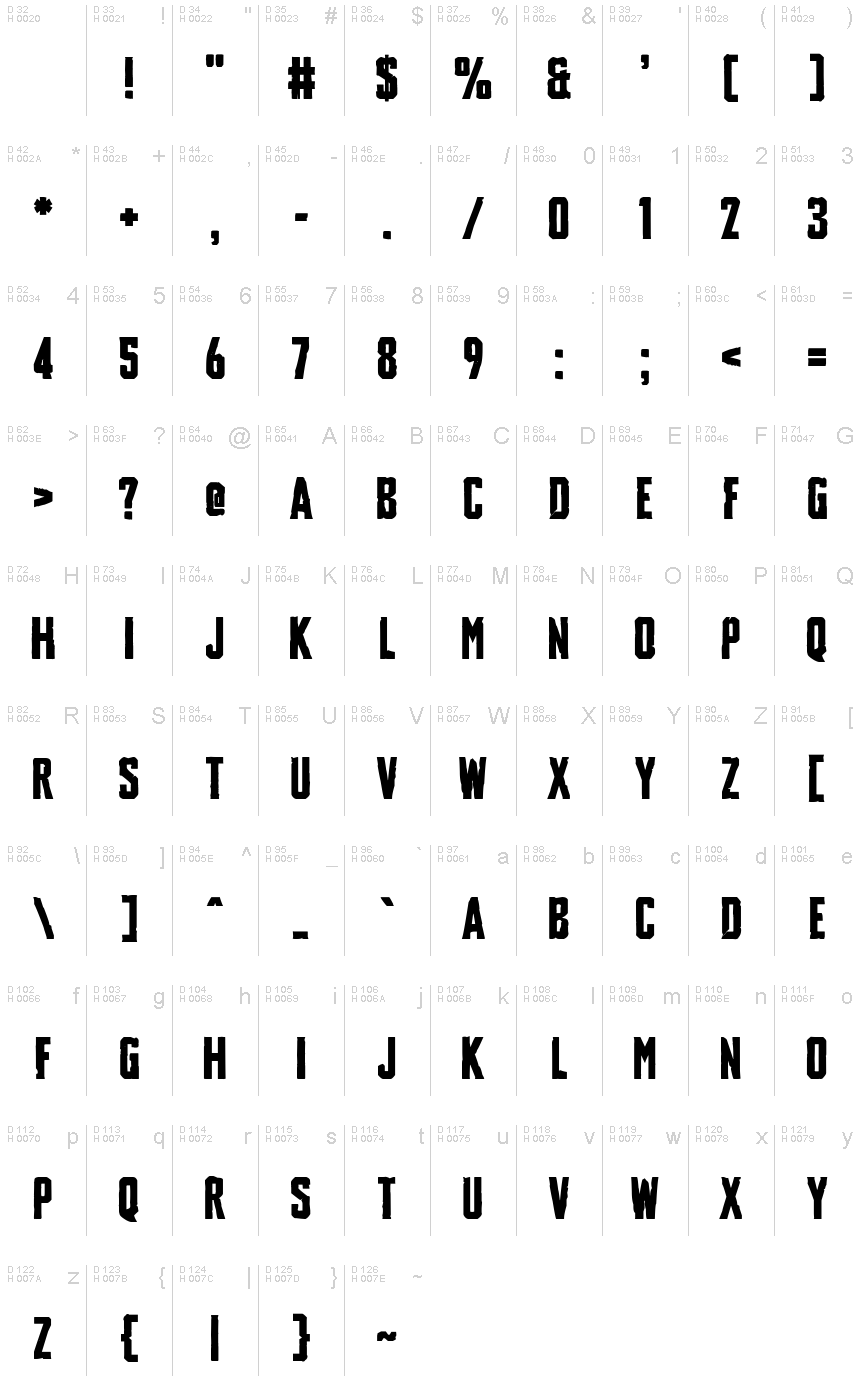
Destruction Manual
Destruction Manual font, crafted by Chequered Ink, offers a striking visual narrative that commands attention. Its distorted style evokes a sense of chaos and creativity, making it a compelling choice for designs aiming to break the mold. The font’s condensed form enhances its boldness, allowing each character to stand out with dramatic flair.
With its unique aesthetic appeal, Destruction Manual is ideal for modern branding, edgy publications, or any project seeking to convey an avant-garde identity. Whether gracing album covers or posters for underground events, this font injects a dynamic energy that resonates with contemporary audiences. Its engaging and unconventional design ensures that it leaves a lasting impression in various creative contexts.